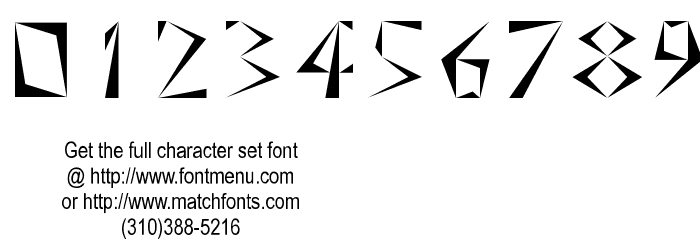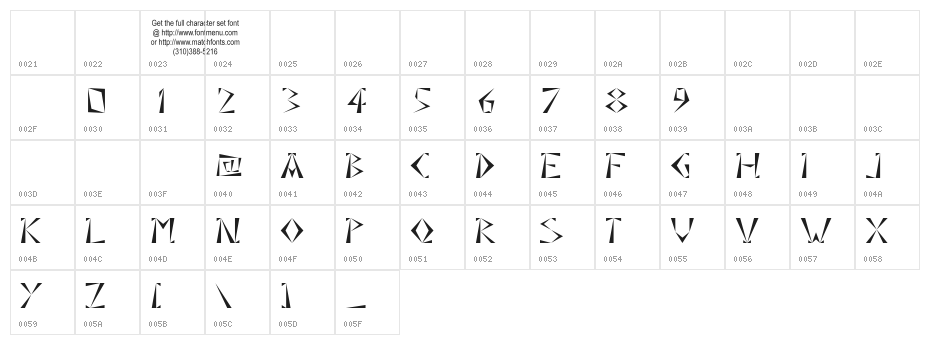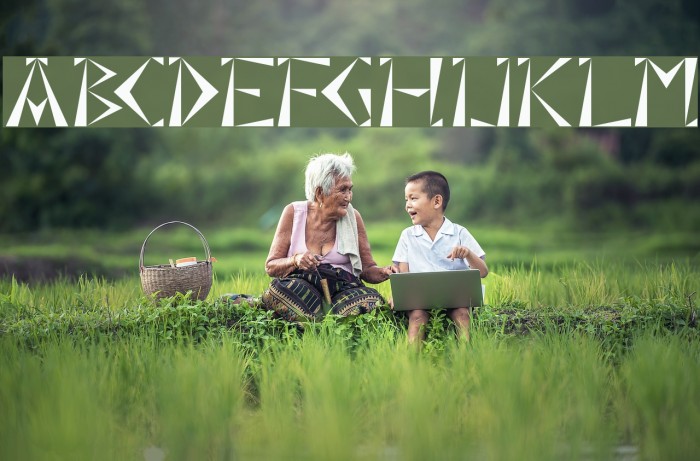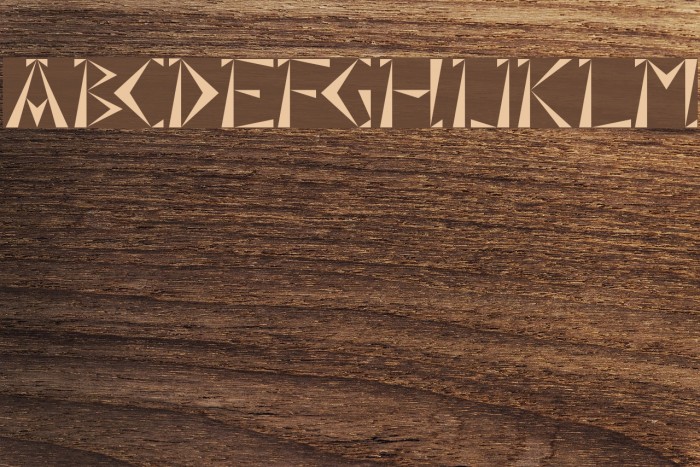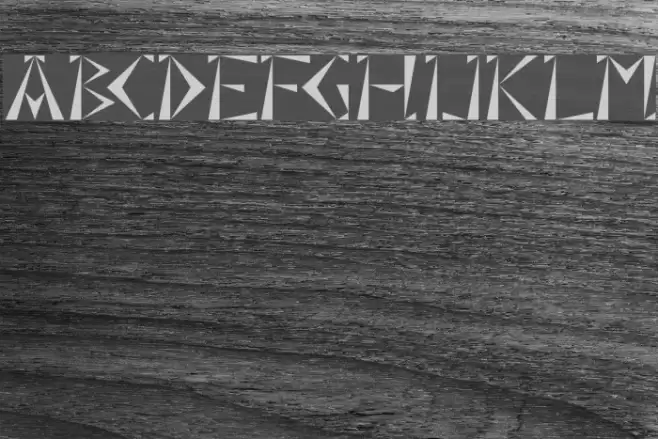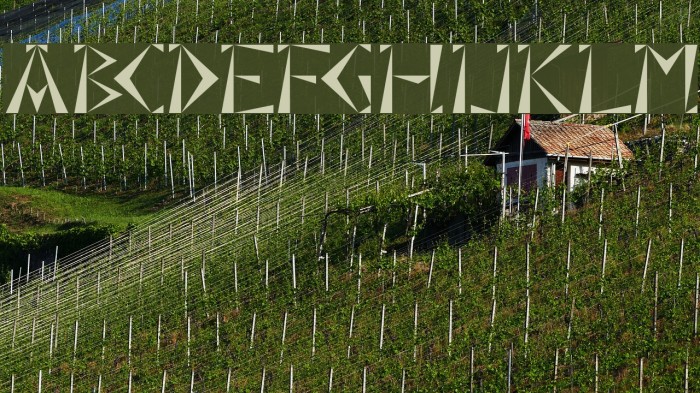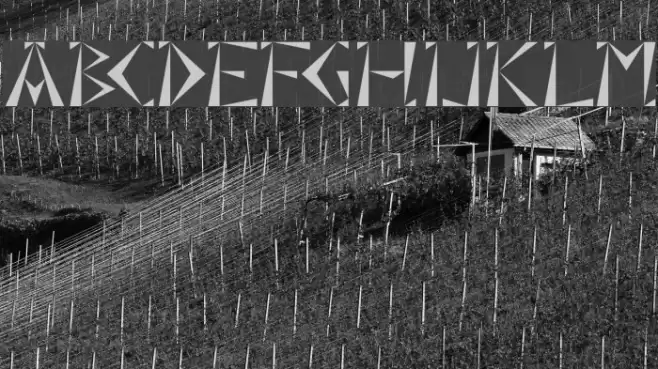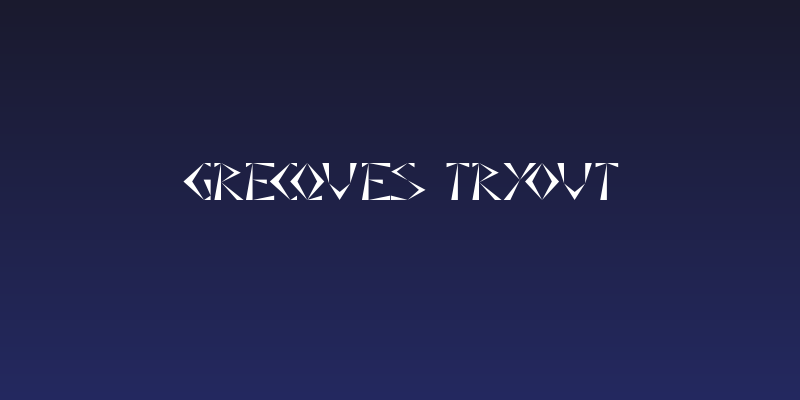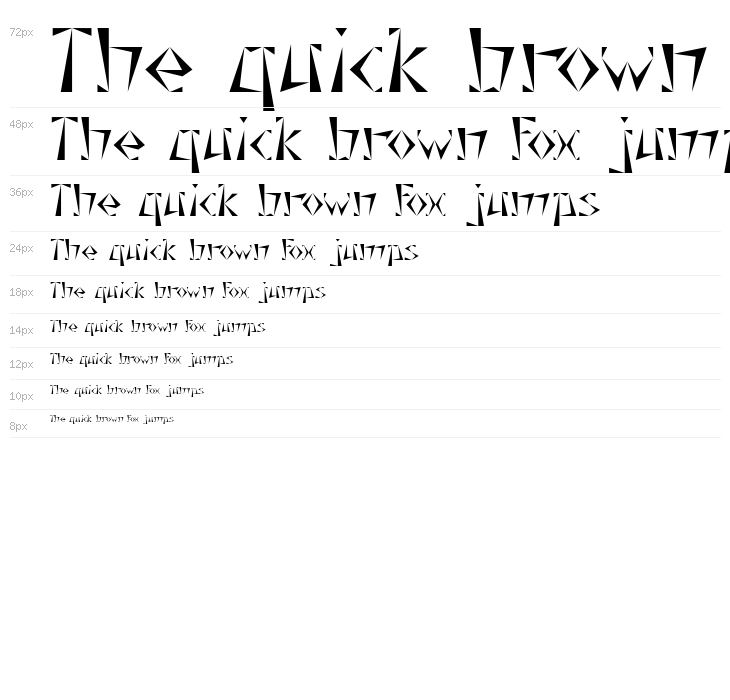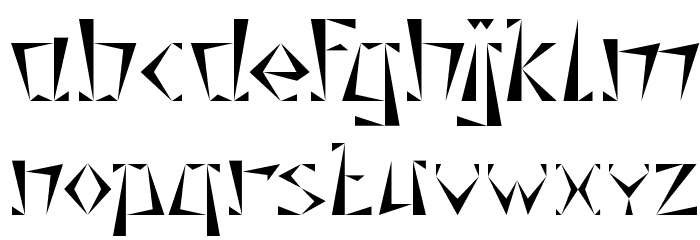
Grecques Tryout Font
Grecques Tryout Description
This font features a highly stylized and angular design, characterized by sharp, geometric shapes and a bold presence. The letters are constructed with a series of pointed edges and triangular forms, giving it a dynamic and edgy appearance. The uppercase and lowercase letters maintain a consistent style, with each character exhibiting a unique, artistic flair. Numbers and special characters follow the same design principles, ensuring a cohesive look across all elements. The font's distinctiveness makes it stand out, ideal for projects that require a strong visual impact.
| Proposed Projects | Ideal for branding, poster design, album covers, and any project needing a striking visual impact. |